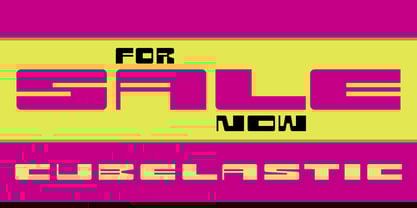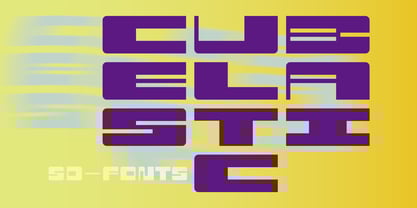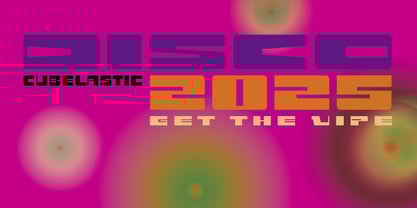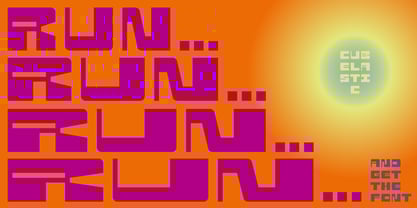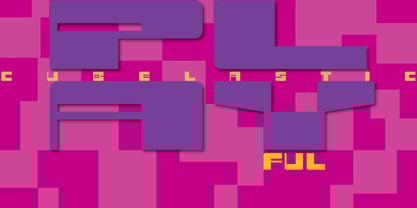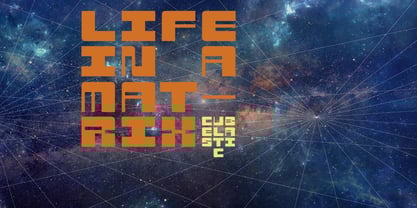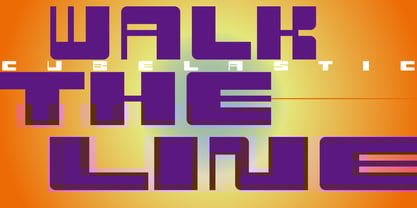
Cubelastic
by SD Fonts
The Cubelastic Font Family was designed by Hartmut Schaarschmidt and published by SD Fonts. Cubelastic contains 5 styles and family package options. More about this family
Cubelastic is a striking geometric uppercase display typeface built on bold, cubic foundations—perfect for posters, branding, and any design that needs to stand out. With four distinct widths, Cubelastic brings dynamic energy to your visuals, and when used as a variable font, it comes to life with smooth, pulsating animations (see separate font listing) .
But it’s not just about power—Cubelastic is versatile too. With two stylistic sets (ss01 and ss02), you can add movement and rhythm to the clean, geometric forms. Activate ss03, and Cubelastic transforms into a monospaced font, perfect for grid-based layouts and modern tech aesthetics.
From high-impact headlines to experimental layouts, Cubelastic gives you bold control and endless design potential.